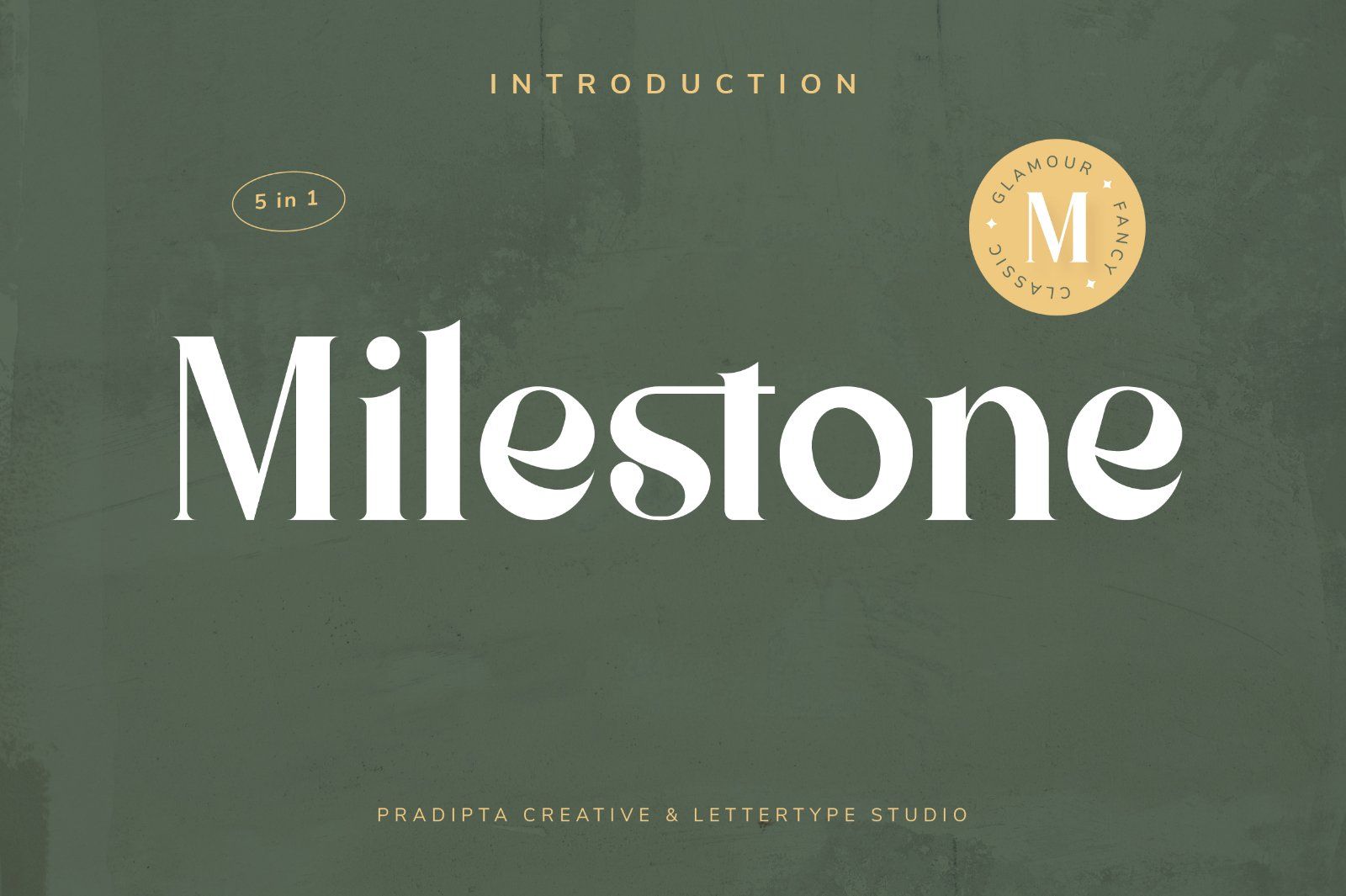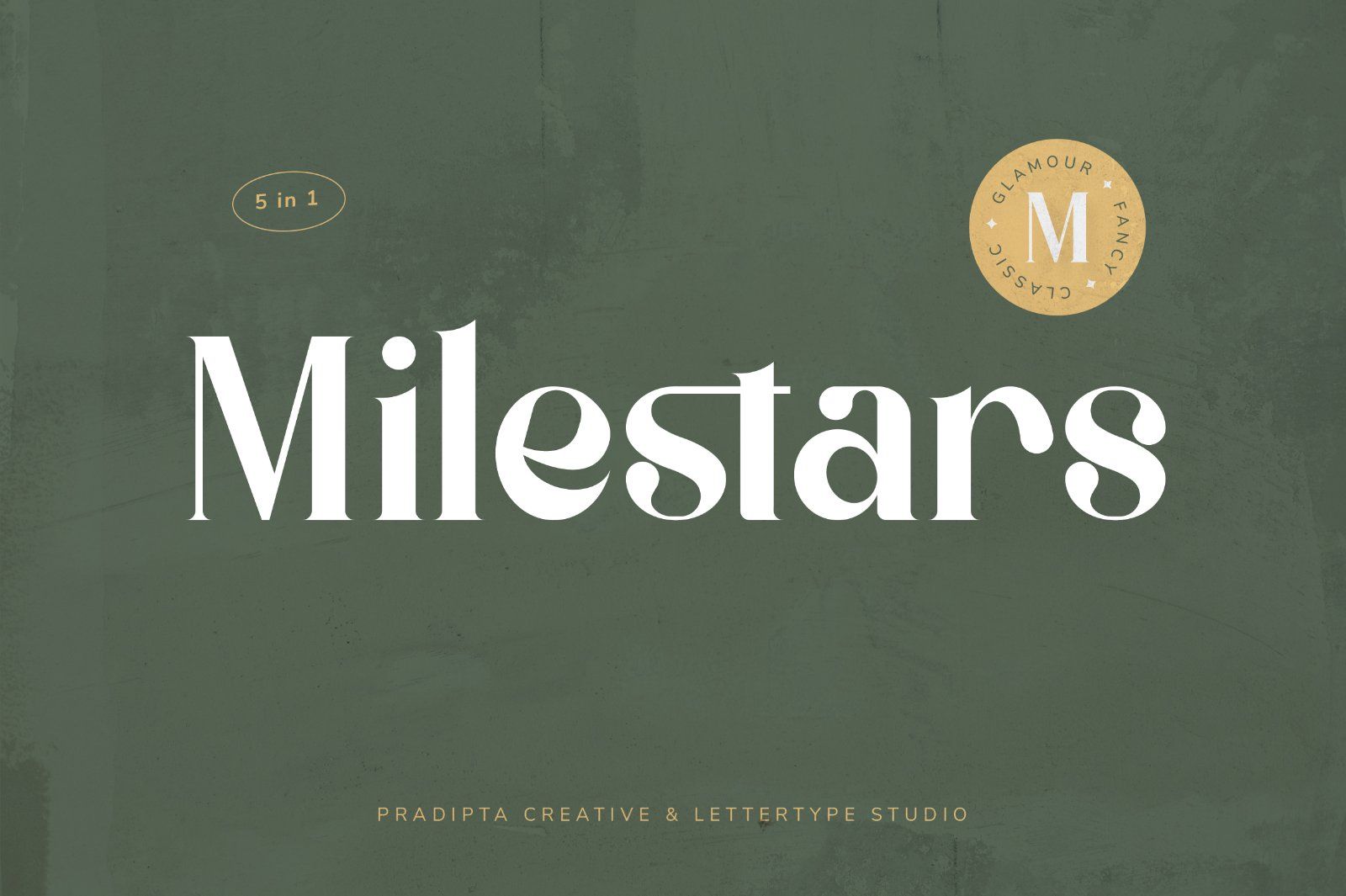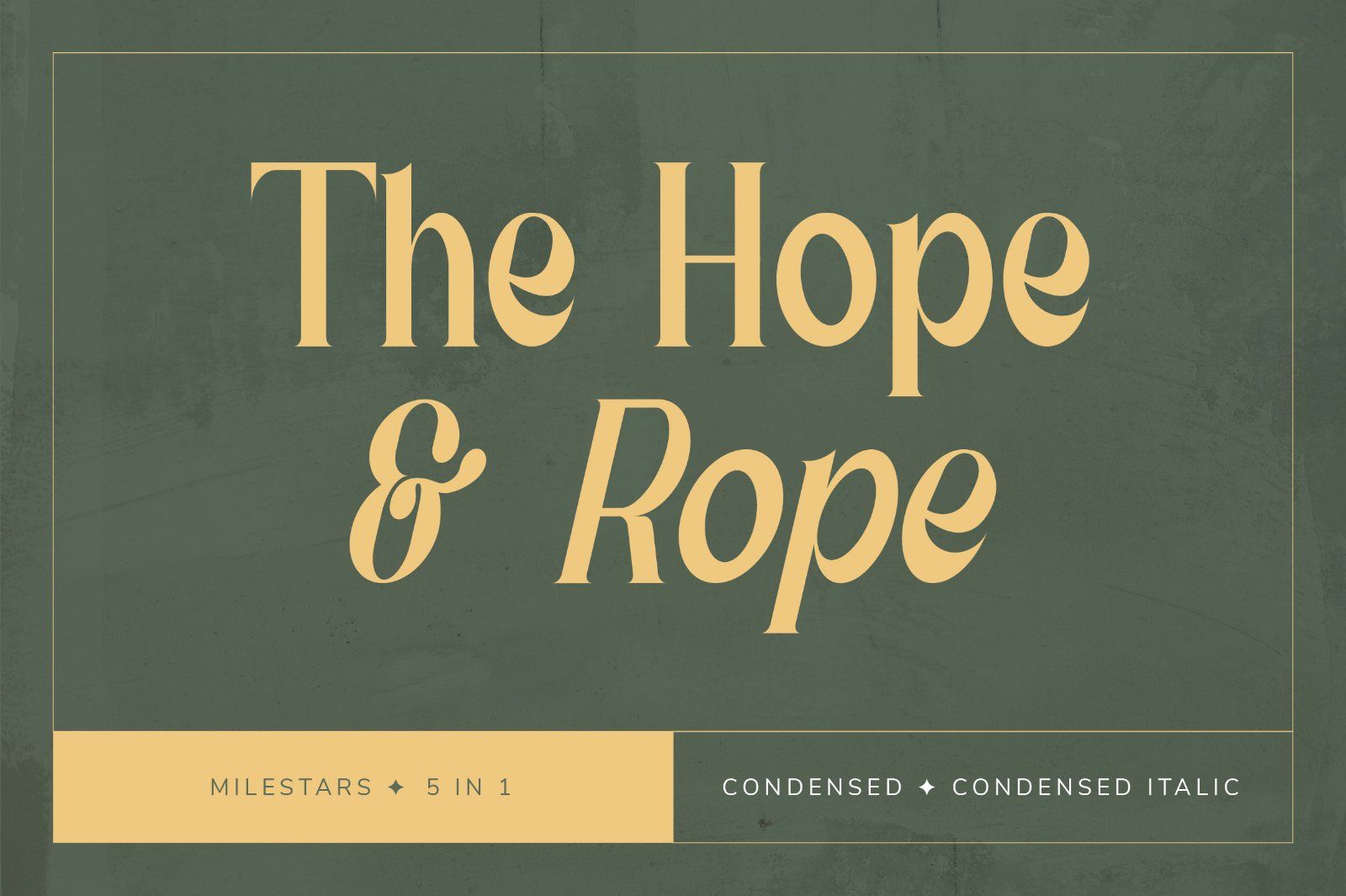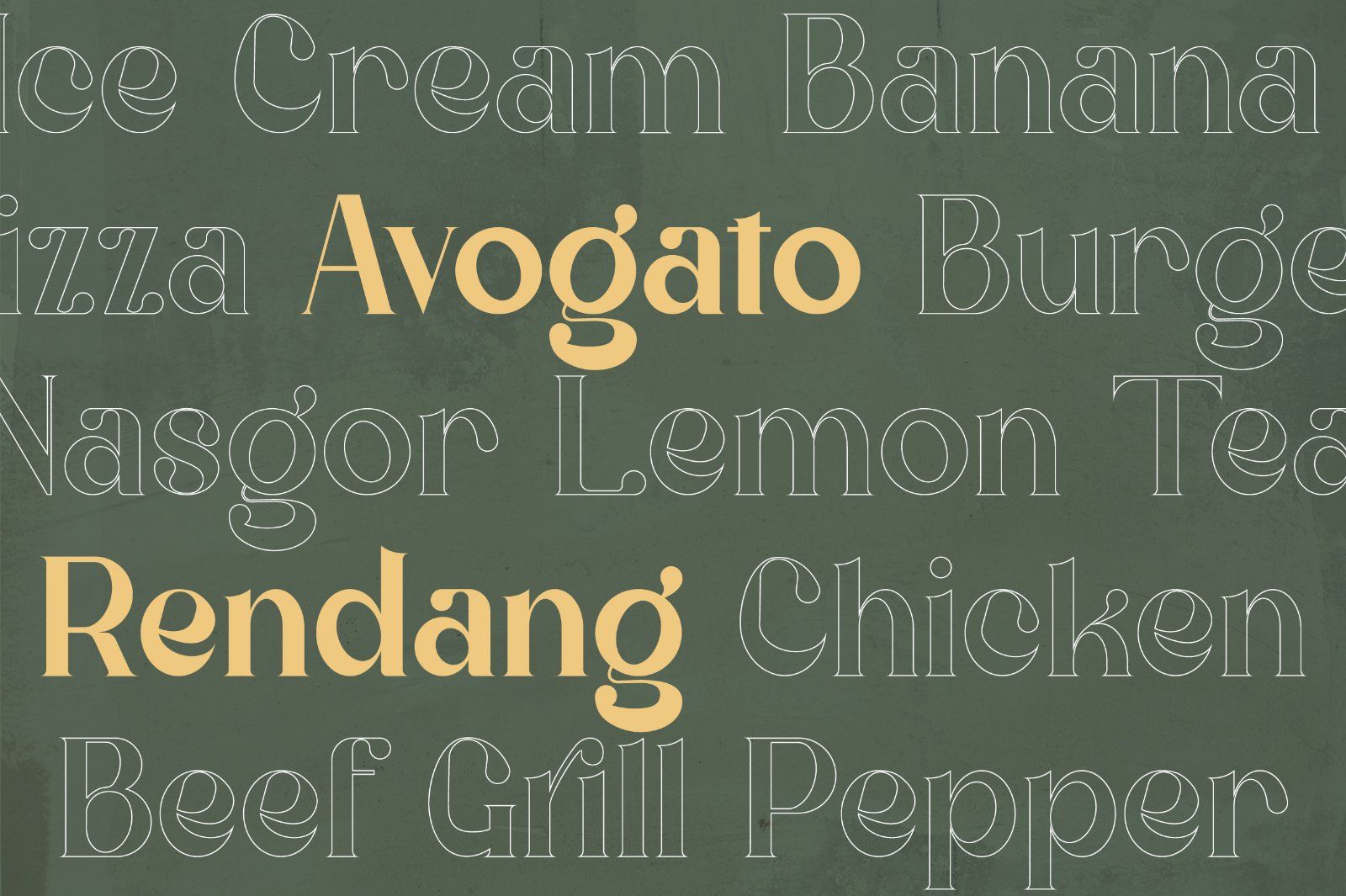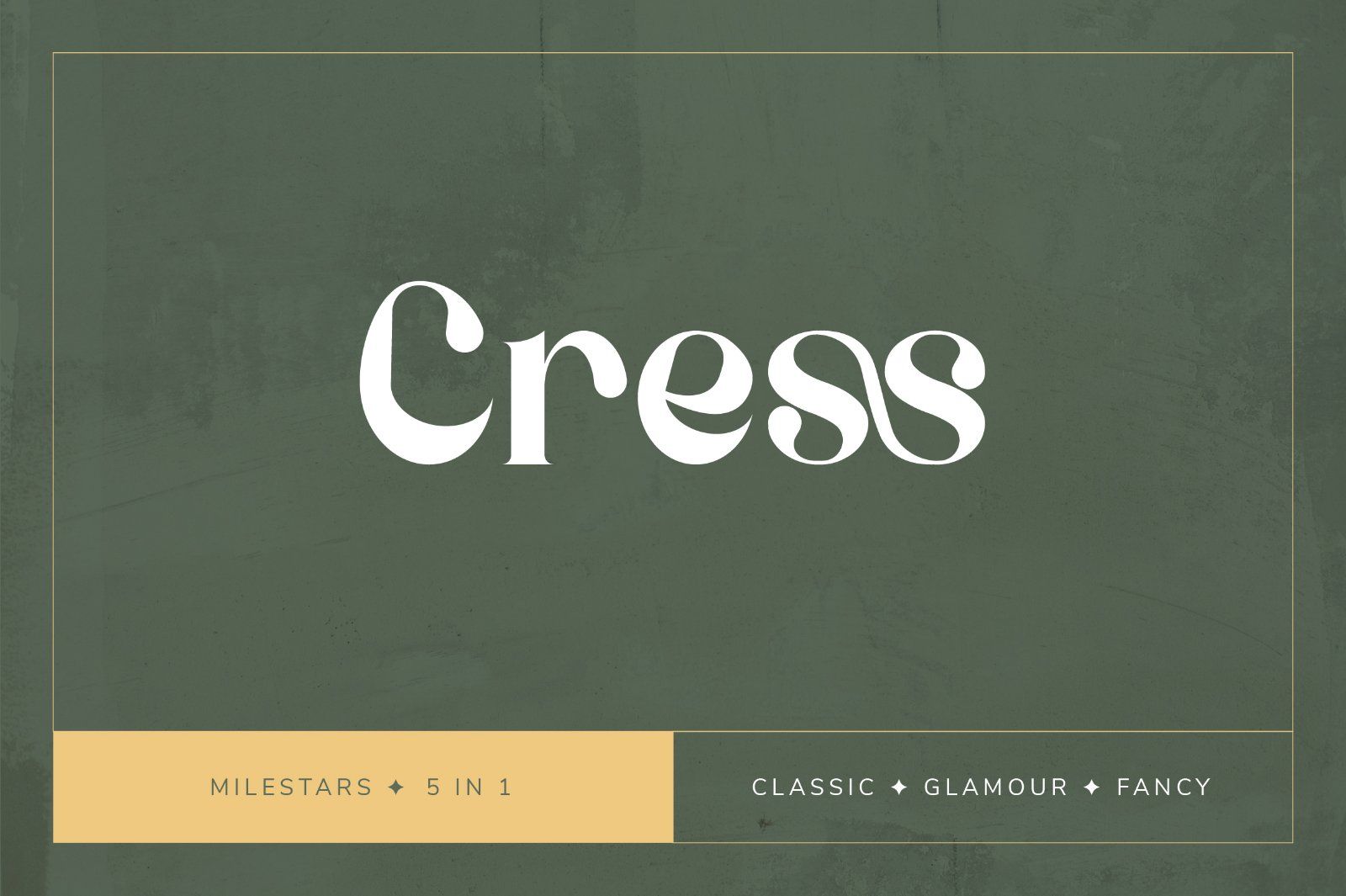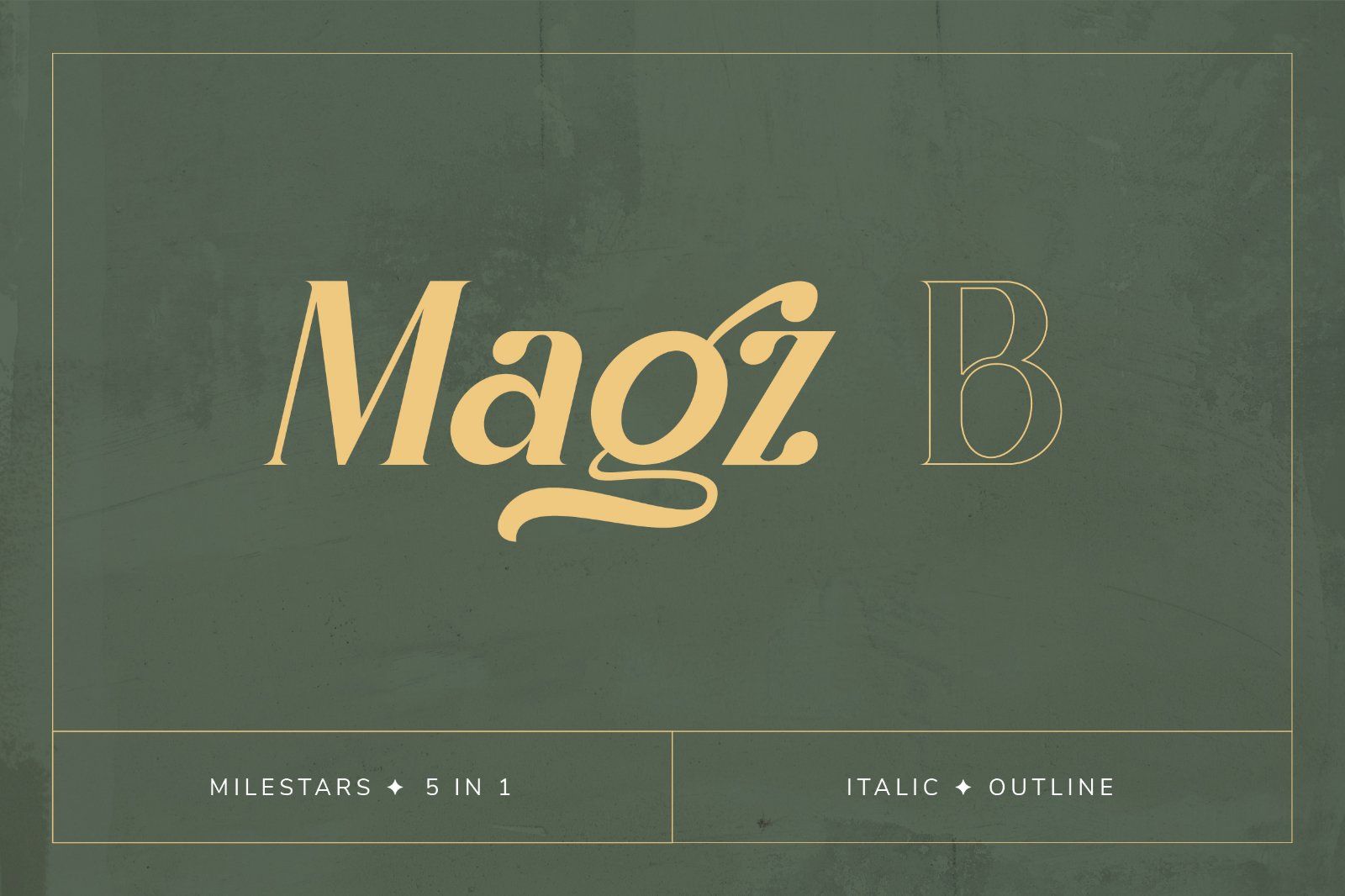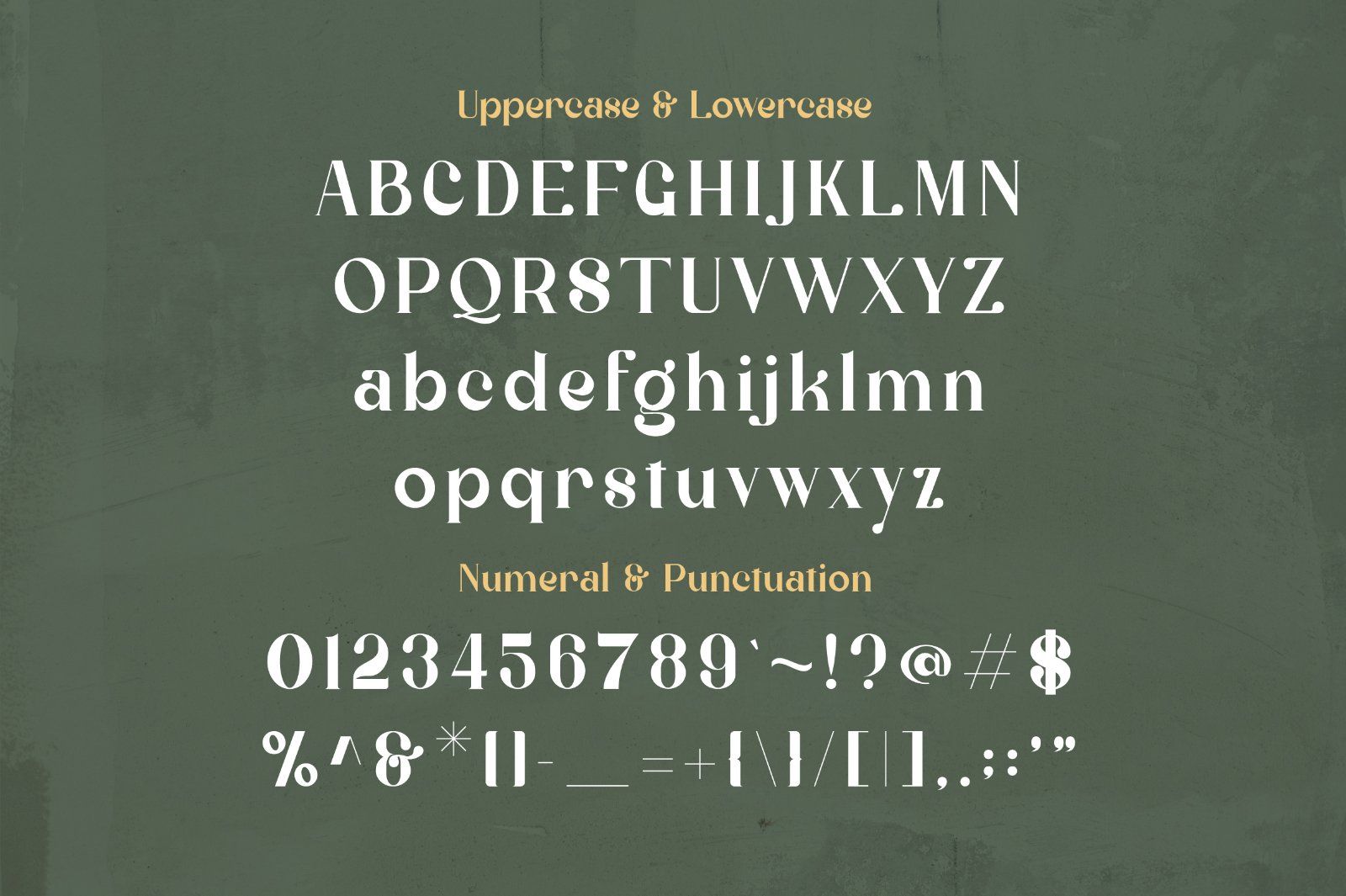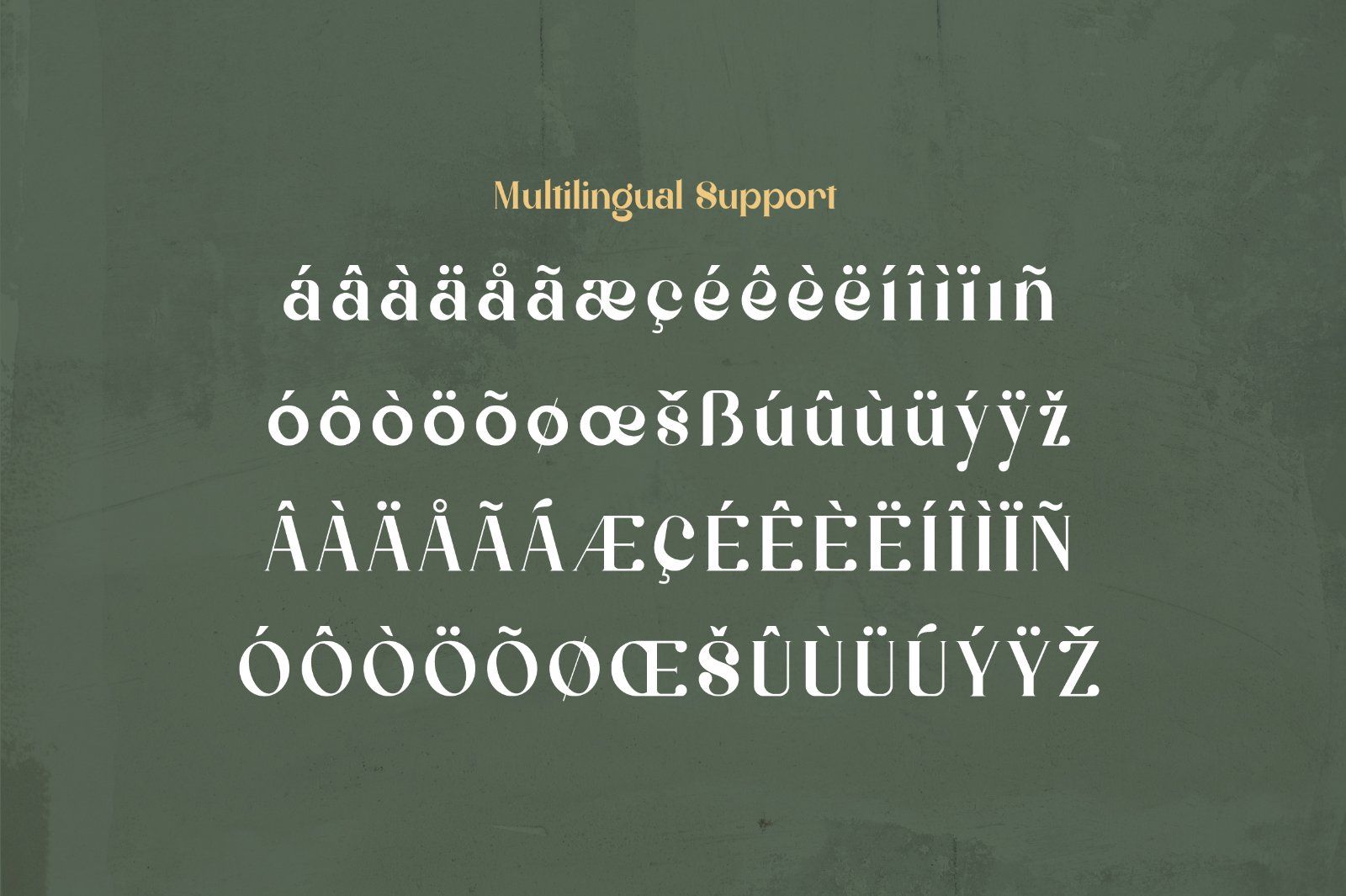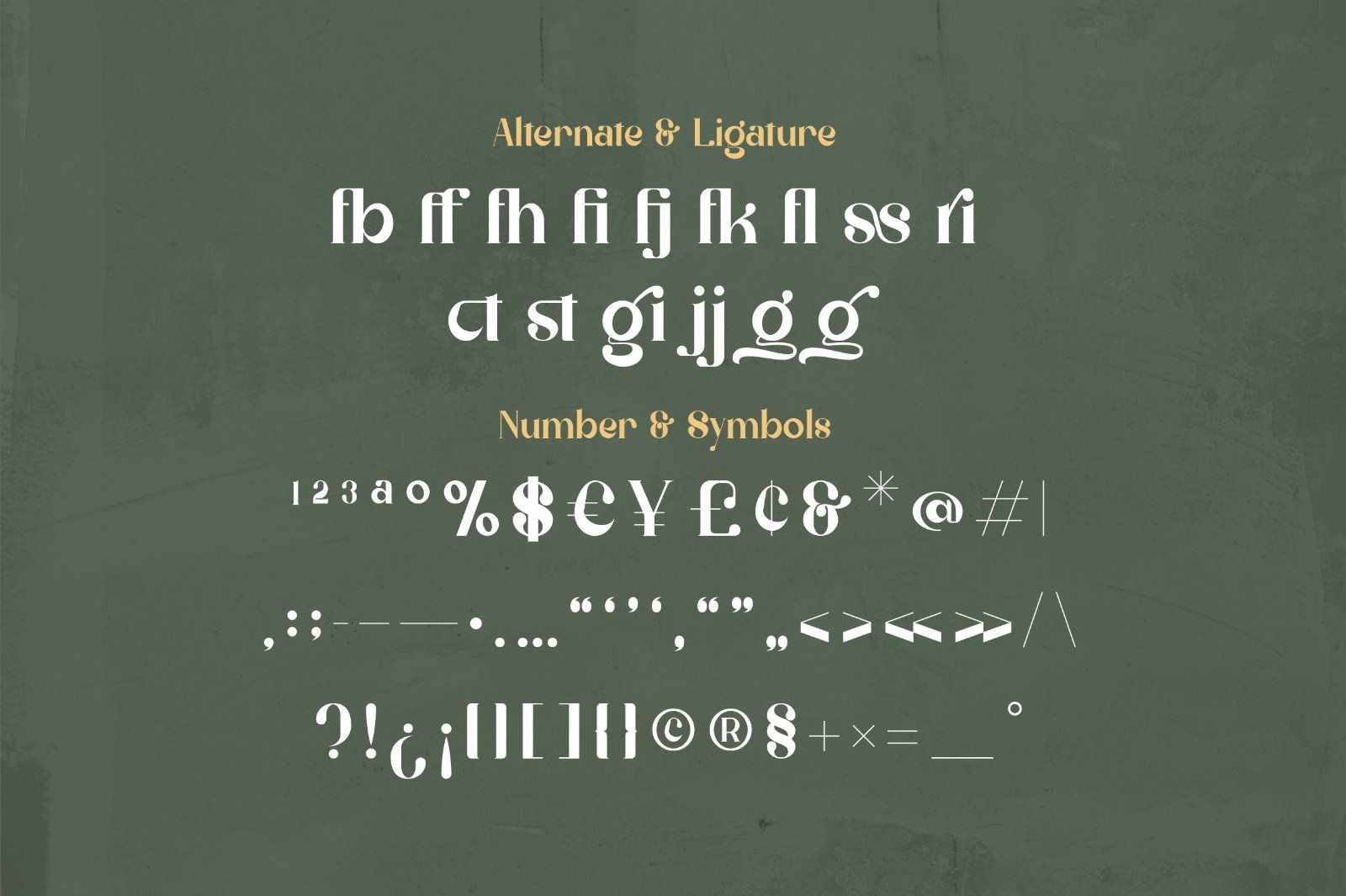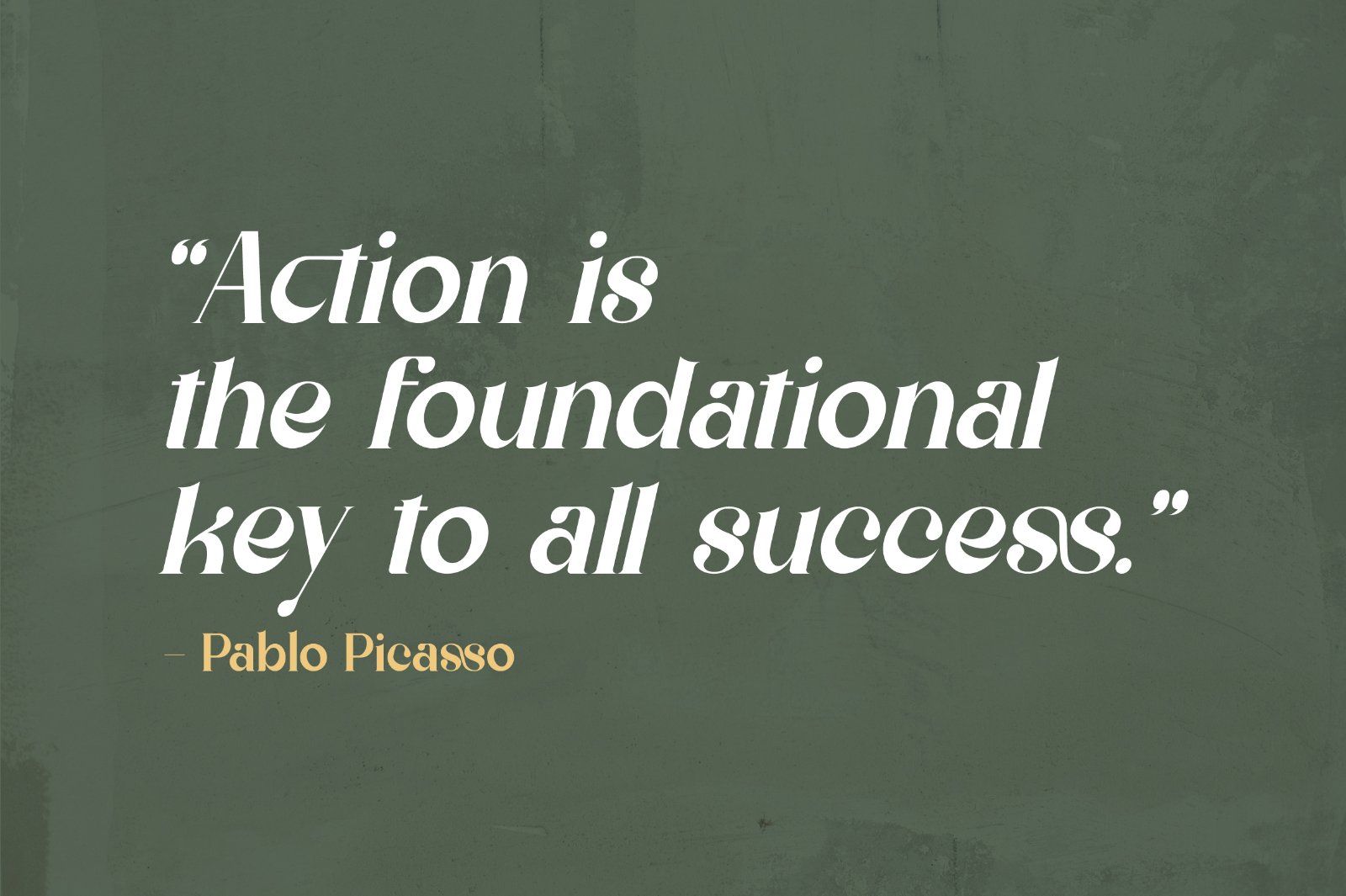
Milestone Serif is a classic, glamour and fancy font. This font will be perfect use for your logo design, branding, clothing, signage, header, posters, wedding invitations and so much more! My goal in creating this font was to create a mix of serif fonts with modern and classic styles, which will help your project to be more luxury and elegant. I believe in making every detail of shapes and edges to be made perfect for you. Don't Miss Out!
Milestone Comes With:
• Lowercase and Uppercase
• Stylistic Ligature
• Stylistic Alternate
• Accented characters
• Milestone Font Style (5 style)
• Multiple Languages Supported